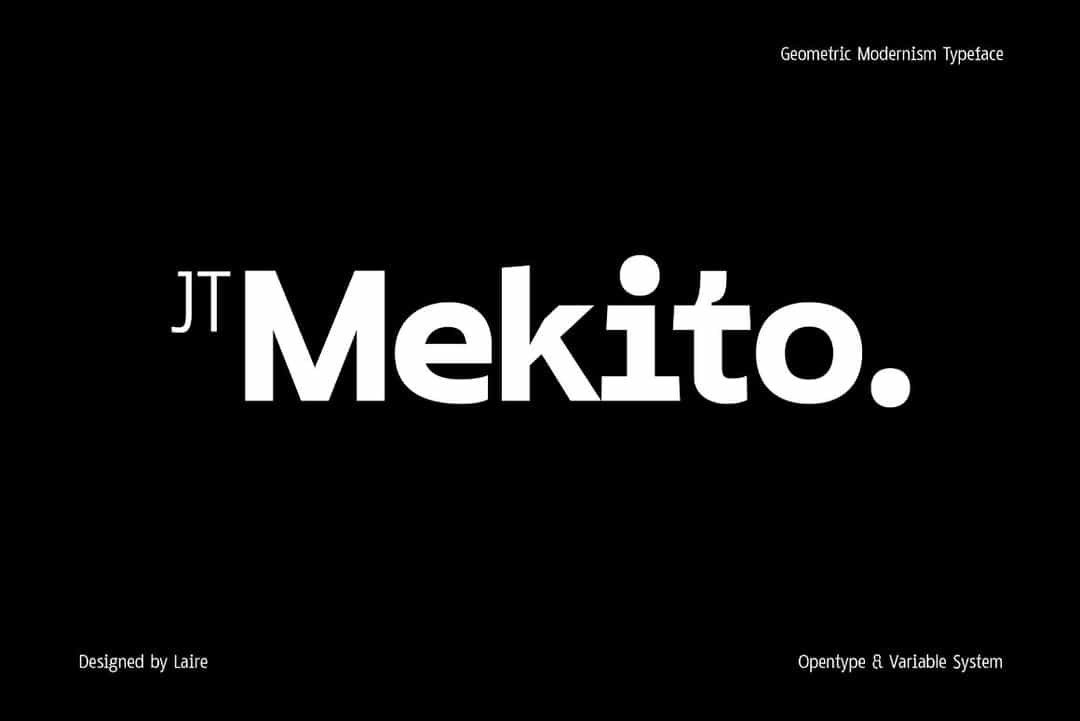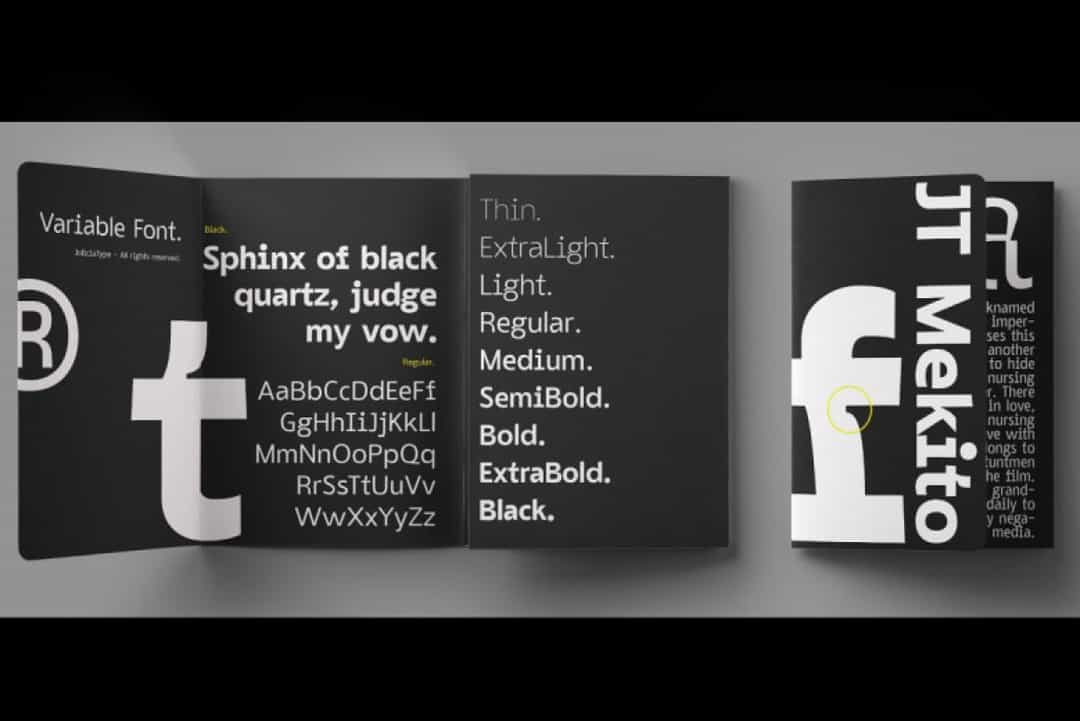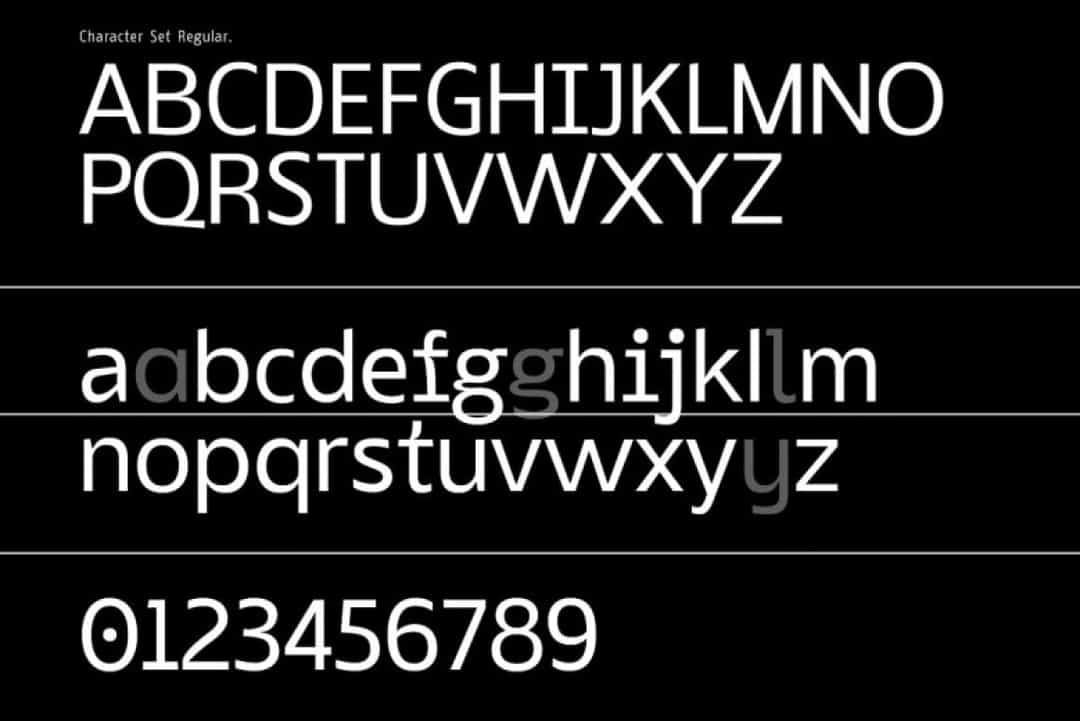
JT Mekito, designed by Laire in 2023 and released for public use in 2024, is a modernist Geometric Sans Serif with Gothic influences that is intended to look cool when used at larger sizes; we added unique accents for letters like F and T for use at smaller sizes while giving the letter I an uni-style that stands out among similar fonts.